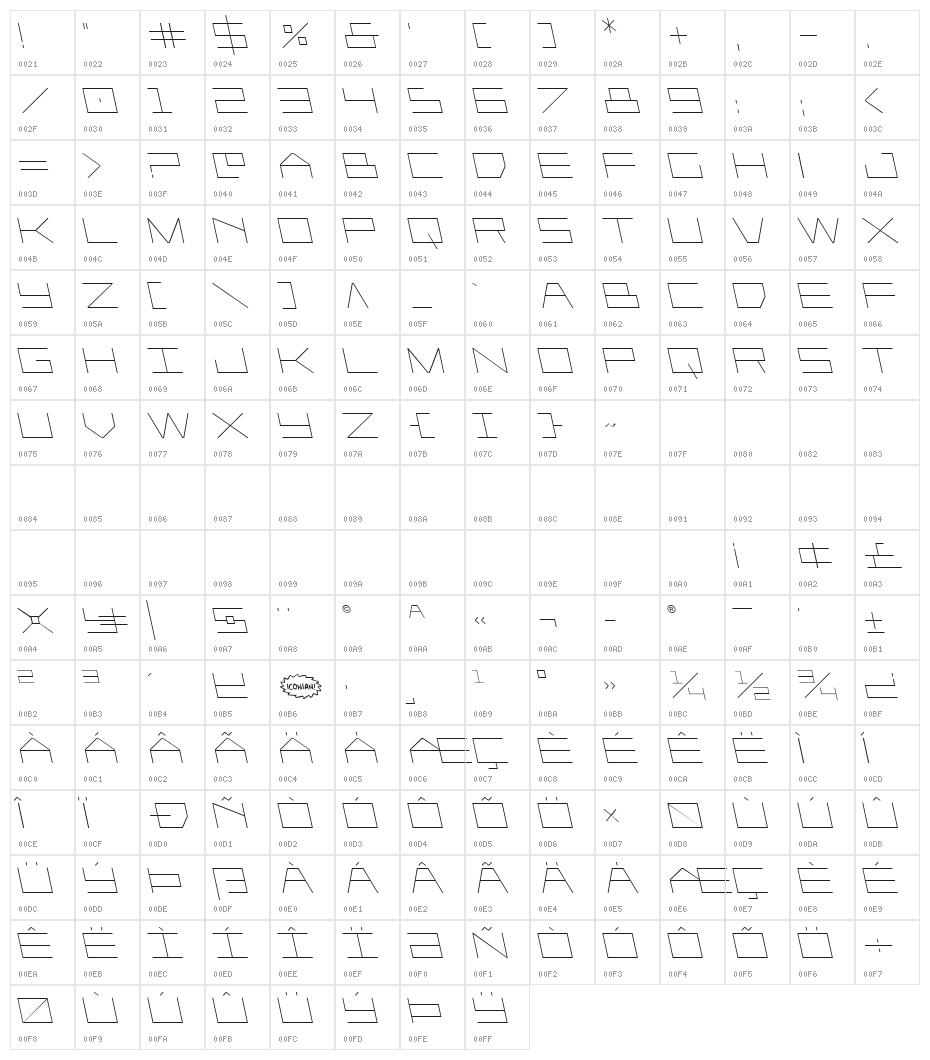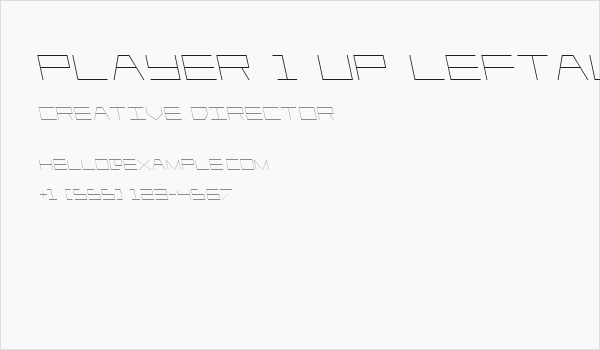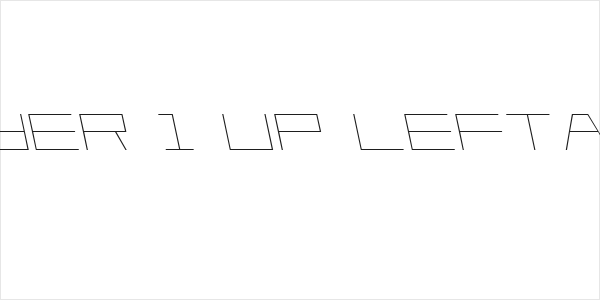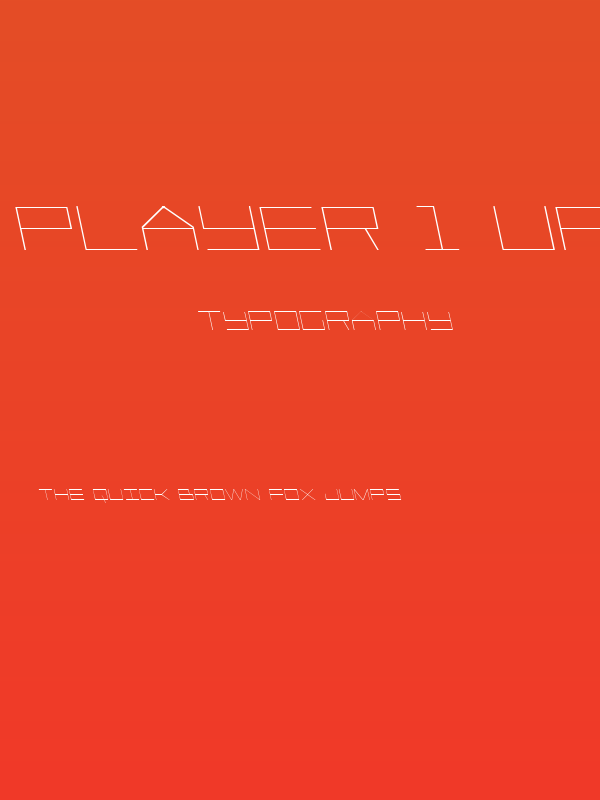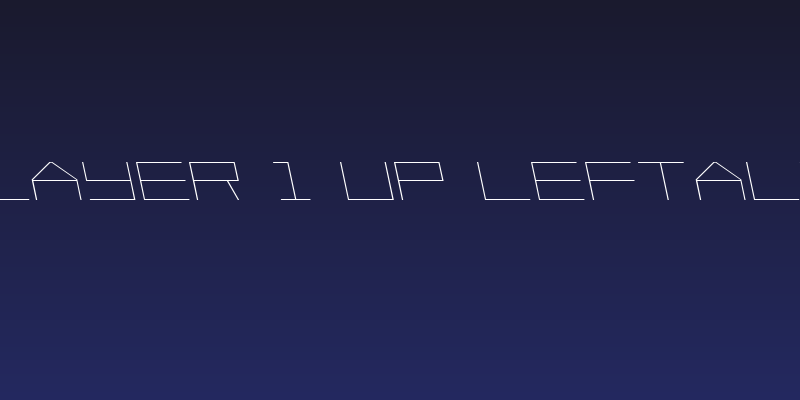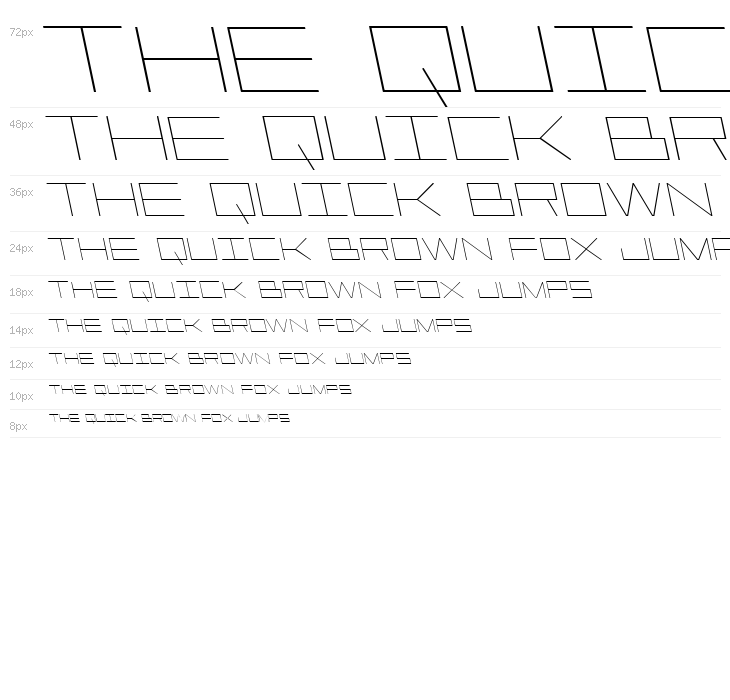
Player 1 Up Leftalic Font
Player 1 Up Leftalic Description
This font features a geometric and angular design, characterized by sharp lines and a futuristic aesthetic. The uppercase and lowercase letters maintain a consistent angular style, giving it a cohesive look. The numerals and special characters follow the same design principles, ensuring uniformity across all characters. This font's unique structure makes it stand out, with a modern and tech-inspired feel that is both eye-catching and distinctive.
Use CaseLogos, Headlines, Digital interfaces
Proposed ProjectsIdeal for tech branding, video game interfaces, sci-fi themed projects, and modern digital displays.